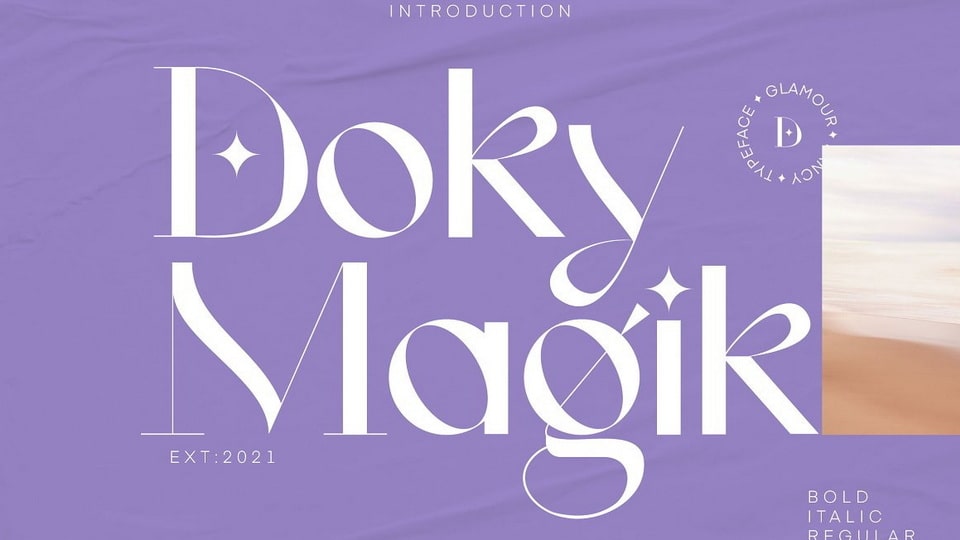
Download Doky Magik font, an incredibly elegant, modern and unique serif typeface. Expertly designed to make your creation look out of this world, Doky Magik font will look gorgeous on a variety of ideas.
Designer: Dean Nugraha